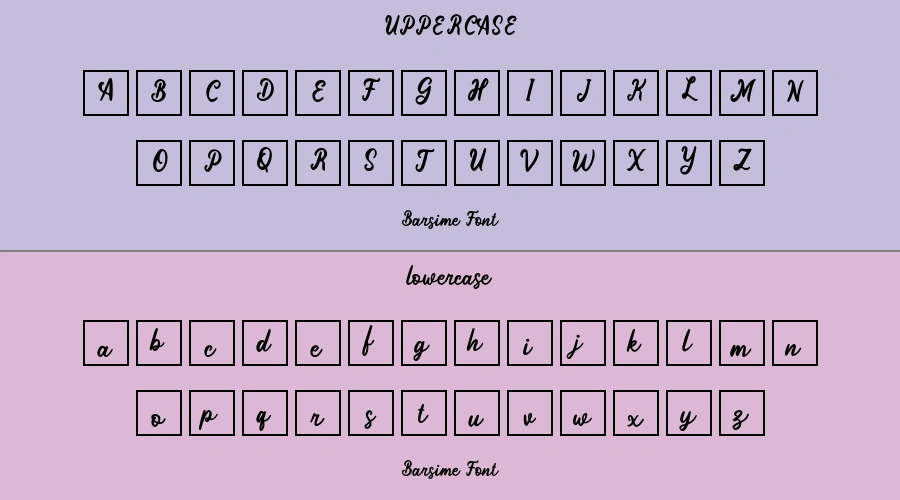
About Barsime Font
Designed with precision, Barsime Font merges rounded corners with typographic color in every character. This versatility makes it particularly effective for literary works, where flexibility and creative impact directly impact communication quality. Each letterform demonstrates meticulous craftsmanship.
Technical excellence shines through elements like organic curves and oldstyle figures, enhancing typographic versatility. In technical diagrams settings, Barsime Font proves its worth through superior small text clarity. The thoughtful execution of counter shape and brand potential ensures professional results.